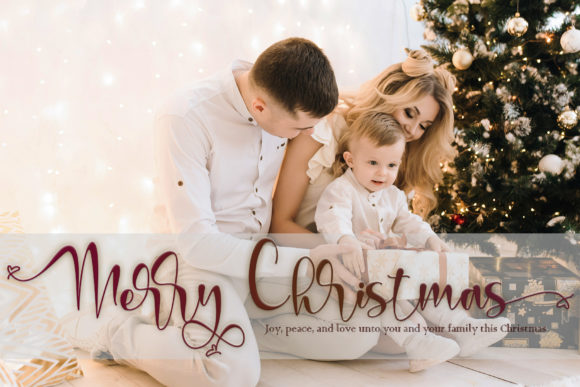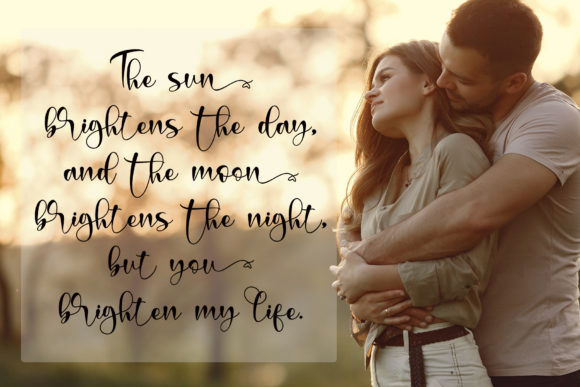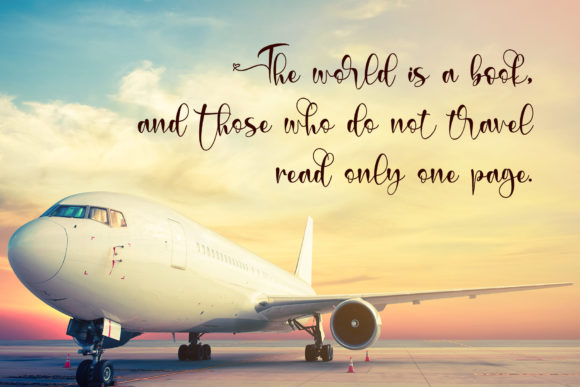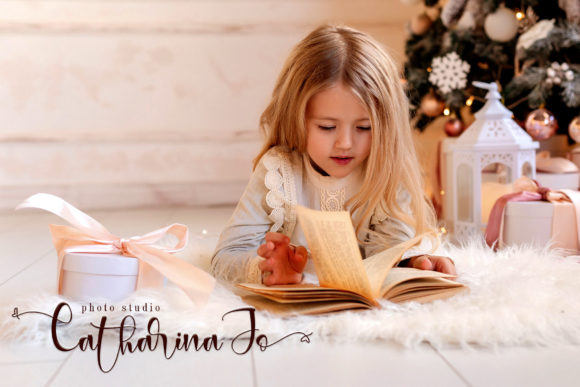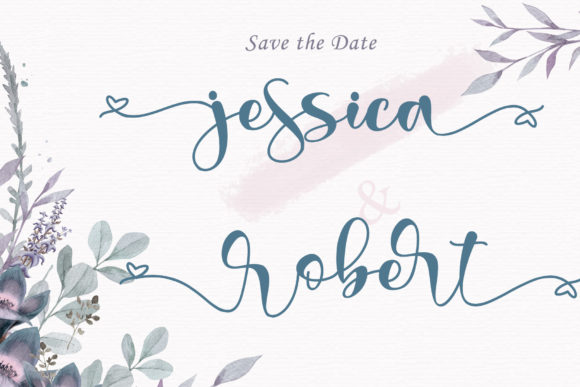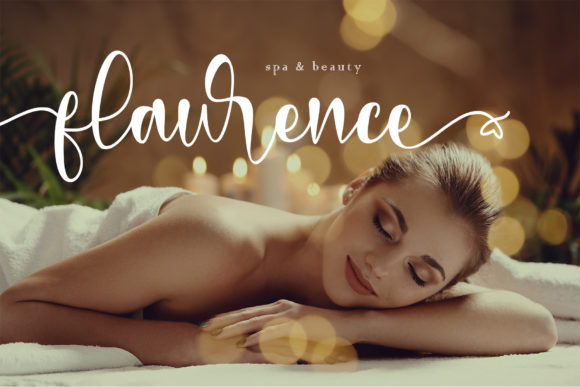
Introduction to Mabelle Font
Have you ever found yourself pouring over a sketchbook, brainstorming ideas for a special project? Maybe it’s a holiday card for a loved one or a wedding invitation for a dear friend. Whatever the project, you know it needs something extra – a touch of whimsy, a dash of romance. That’s where the enchanting Mabelle Font comes in.
This beautiful, handwritten font is the perfect design resource for any creative project. With its stunning hearts as ornaments, it adds a warm, festive feel to even the simplest of designs. And with its PUA encoding, you can easily access all of the glyphs and swashes, making it a high-quality choice for designers looking to add a personal touch.
Key Features of Mabelle Font
- High-quality, elegant script font suitable for creative projects, such as wedding invitations, greeting cards, and other design work.
- Unique characteristics include a beautiful, flowing script and a range of ligatures, making it perfect for creating elegant and sophisticated designs.
Honest Review: Mabelle Font
I recently stumbled upon the Mabelle Font, and I’m excited to share my thoughts with fellow designers. This elegant script font has been a game-changer for my creative projects.
- ✨ High-quality design: The Mabelle Font boasts crisp, clean lines and a beautiful texture that makes it perfect for projects that require a touch of sophistication.
While the Mabelle Font excels in many areas, there are a few limitations to consider:
- ⚠️ Limited font weights: The font only comes in a few weights, which may limit its versatility for projects that require a range of font weights.
- ⚠️ Not suitable for bold typography: Due to its elegant nature, the Mabelle Font may not be the best choice for projects that require bold, attention-grabbing typography.
Overall, I’m impressed with the Mabelle Font’s quality and design. It’s an excellent resource for designers working on creative projects that require a touch of elegance and sophistication.
Tips for Getting the Most Out of Mabelle Font
For a high-quality design, use Mabelle Font on a transparent background to create a clean and minimalist look.
For a creative project, use Mabelle Font in combination with other design resources to add texture and interest.
Mabelle Font is perfect for:
Creating a modern and sleek logo.
Designing a brochure or flyer.
Adding a touch of elegance to a wedding invitation.